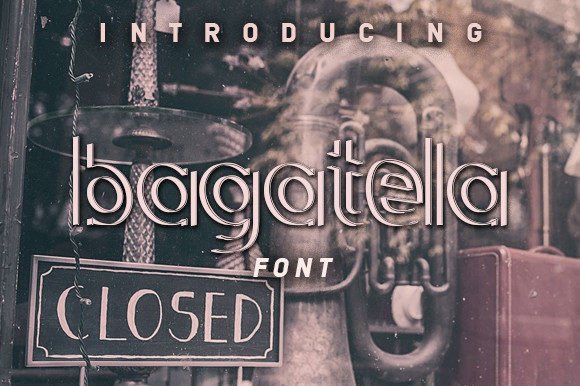
Journey into the Realm of Bagatela: Where Typography Meets Art
Discover Bagatela, the captivating decorative font family that will transform your creative projects into masterpieces. Step into a world where letters dance with grace and elegance, leaving an unforgettable mark on every design. Unleash your imagination and embark on a typographic adventure like never before.
With Bagatela, every word carries a story, every letter a work of art. Its intricate 3D design adds a touch of sophistication and allure to your designs, making them stand out from the ordinary. From logos that command attention to social media posts that captivate, Bagatela is the key to unlocking your creative potential.
Picture this: your event posters adorned with Bagatela's stunning characters, inviting your audience to an experience they'll never forget. The intricate details and lifelike dimension create a visual feast that draws the eye and sparks curiosity. Your posters will be the talk of the town, leaving a lasting impression long after the event is over.
But Bagatela's magic extends far beyond event posters. Its versatility knows no bounds. Craft eye-catching cards that convey heartfelt messages in a unique and memorable way. Design flyers that demand attention, ensuring your promotions reach the right people at the right time. Unleash your creativity with posters that transport viewers to another realm, captivating them with every glance.
In the world of web design, Bagatela is a game-changer. Its ability to add depth and dimension to your websites will leave visitors in awe. Create headers that demand attention, body text that flows effortlessly, and call-to-actions that entice users to engage. Bagatela transforms your website into an immersive experience that captivates and converts.
With Bagatela, you hold the power to elevate your designs to new heights. Its beauty and functionality make it the perfect choice for any project. Let your creativity soar and witness the transformation as ordinary designs morph into extraordinary works of art. Embrace Bagatela today and unlock a world of endless possibilities.